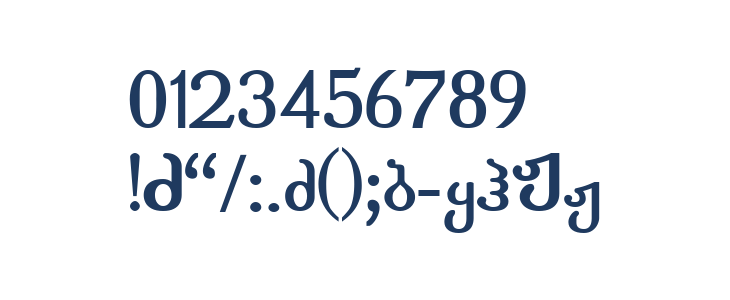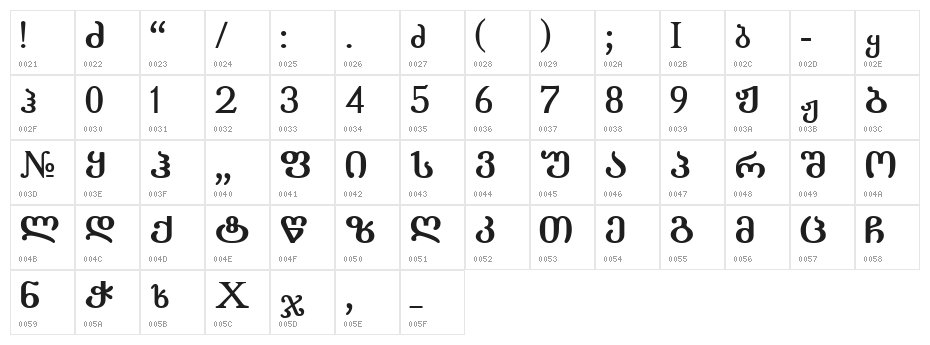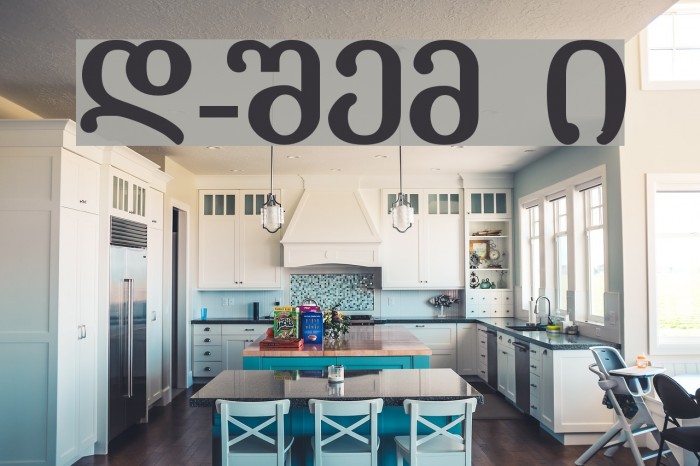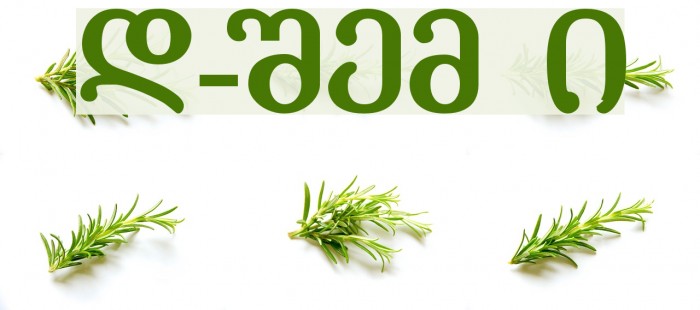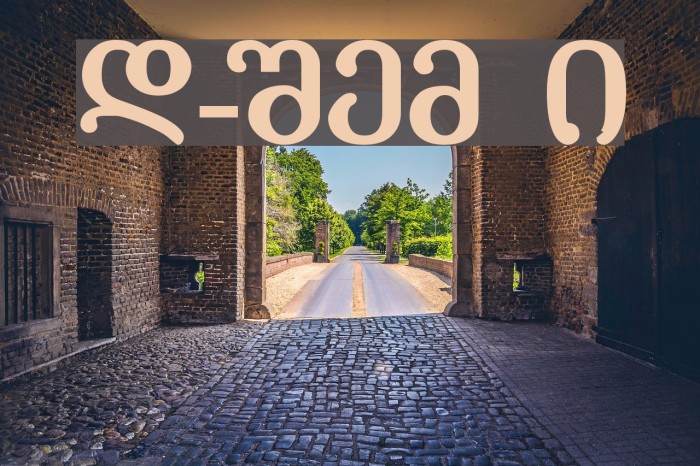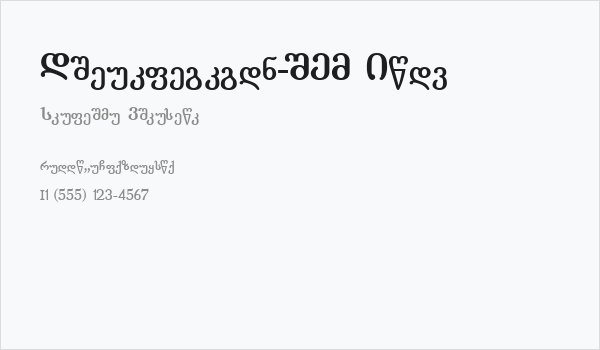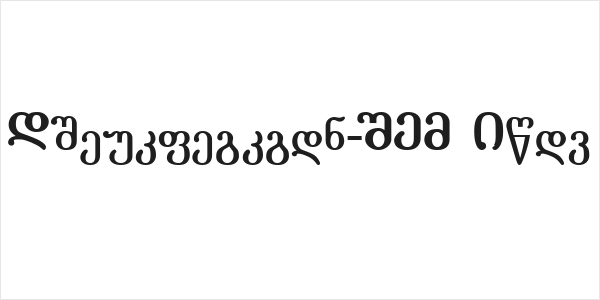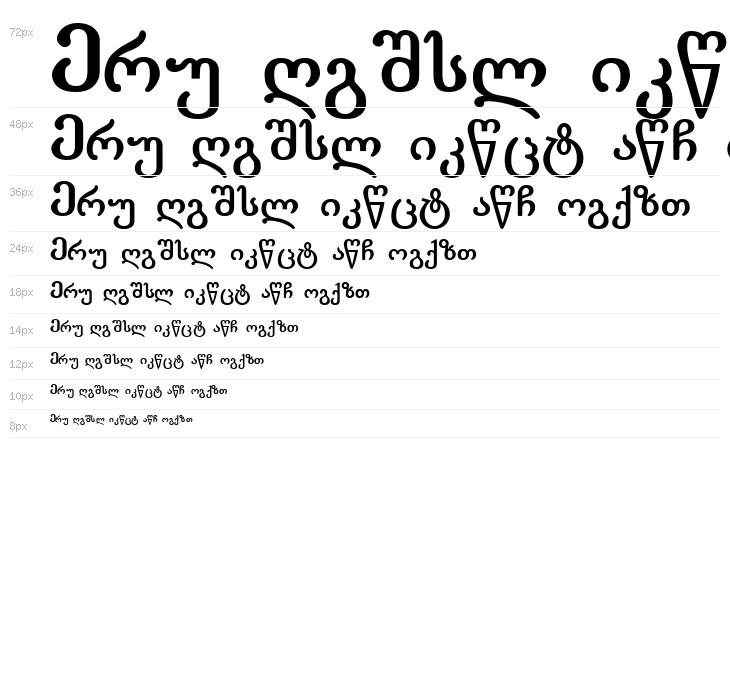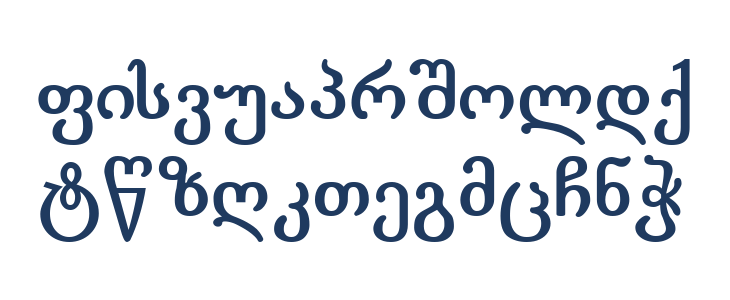
Literaturuly-ITV Bold Font
Literaturuly-ITV Bold Description
This font features a unique and artistic design, characterized by its bold and flowing curves. The letters exhibit a harmonious blend of traditional and modern elements, creating a visually appealing and distinctive appearance. The strokes are thick and consistent, providing a strong presence on the page. The numbers and special characters maintain the same stylistic approach, ensuring uniformity across all elements. This font is particularly suited for creative projects that require a touch of elegance and flair.